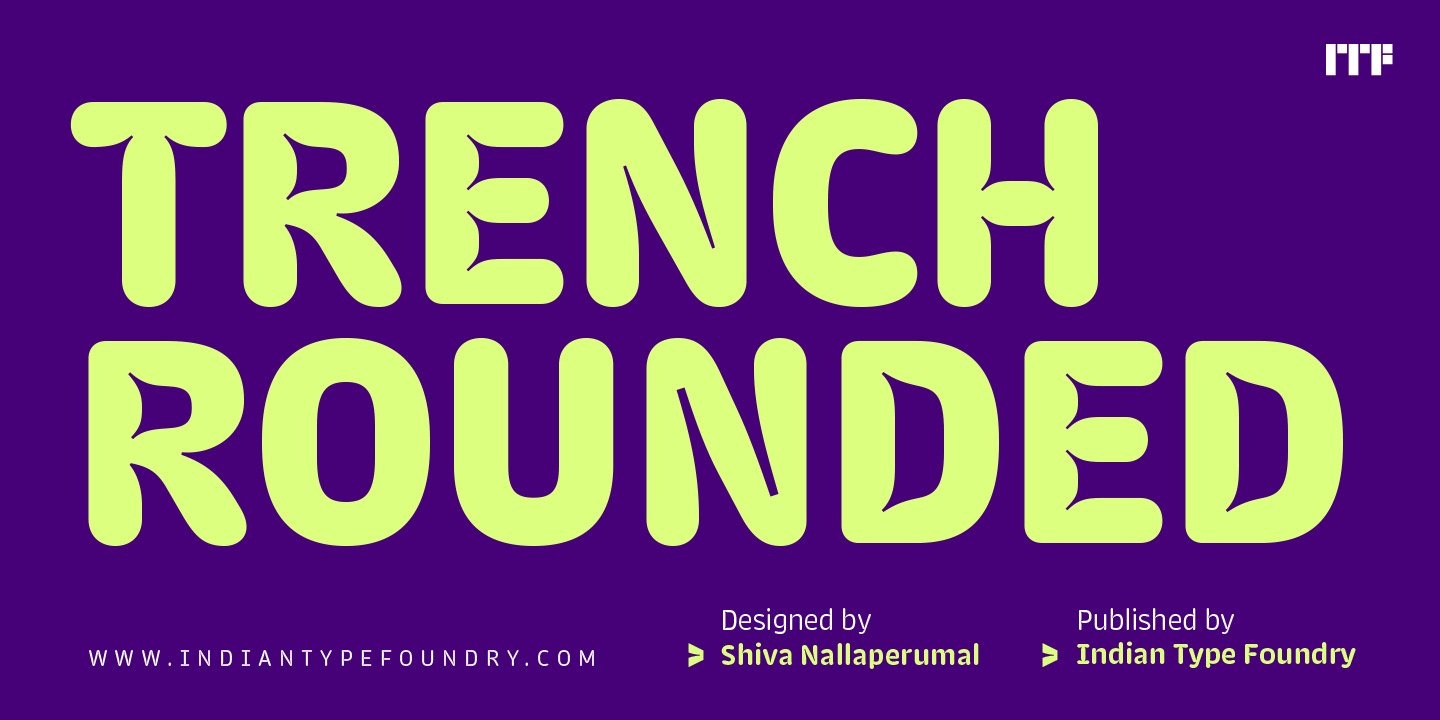
Trench Rounded Font Family
Trench Rounded Font Family is a premium-quality font developed to enhance your work with a polished, modern, and visually elevated look. Trench Rounded is part of the Trench superfamily, which also includes Trench Slab, and a special series of fonts designed to print text is very small point sizes – Trench Sans. All of the Trench fonts include large, prominent ink-traps. Trench Rounded was inspired by a classic piece of graphic design history: Wim Crouwel’s exhibition poster for the sculptor Claes Oldenburg. Those letterforms – even though they don’t bear formal resemblance to Trench Rounded – featured huge, rounded, cushion-like letterforms with distinctive ink-traps; they gave the letters enough depth to echo the softness in Oldenburg’s sculpture. There are a number of alternates included in each Trench Rounded font: the standard form of the capital “I” in all fonts has serifs; the “a” is two-storied and the “g” is single-storied. Over stylistic sets, users can access a capital “I” without serifs, a double-storied “g”, and alternate forms of “M”, “N”, “W”, and “w”.